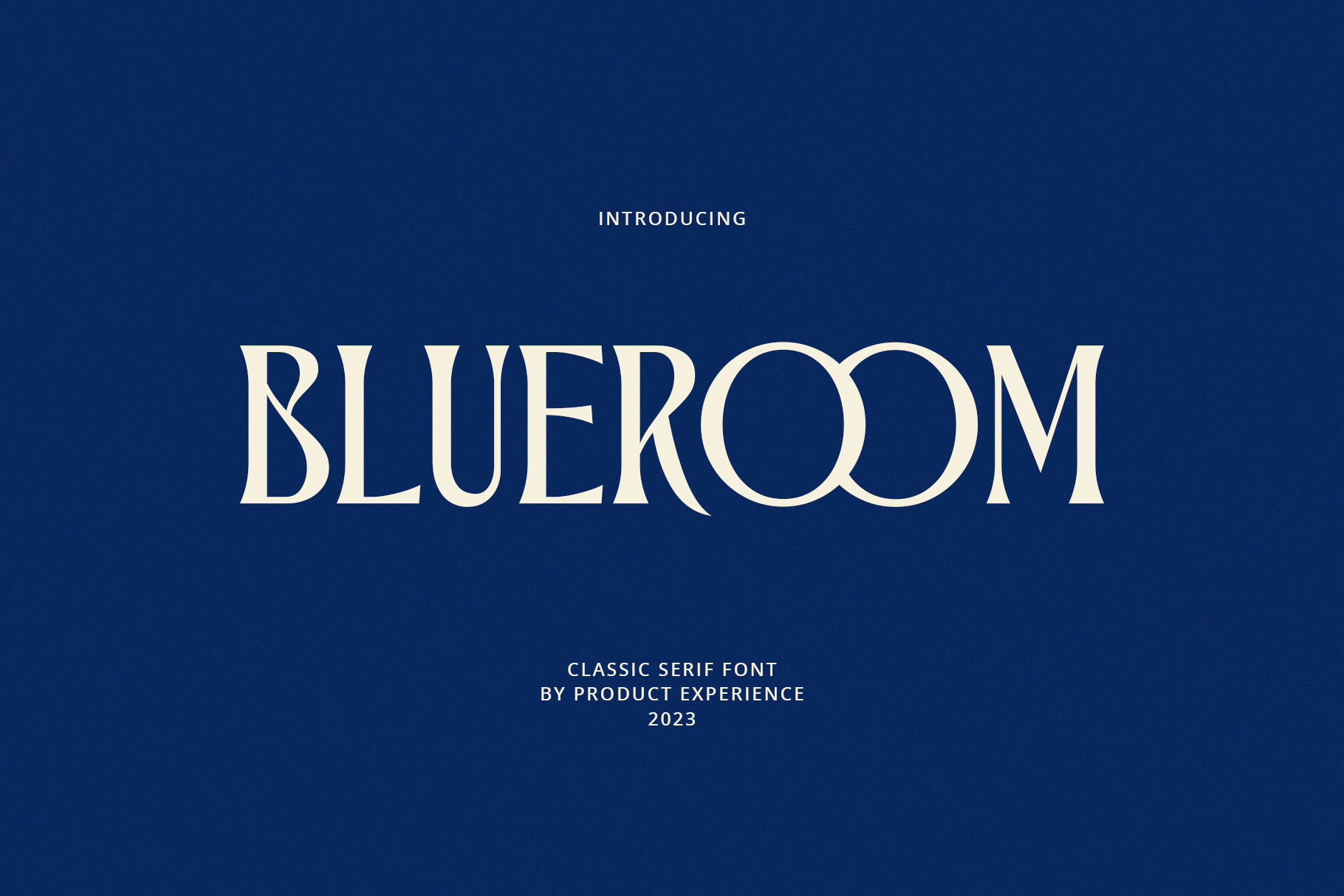
Blueroom Serif Font
Blueroom is a serif font with a classic style and a elegant look. This font also comes with ligatures, stylistic set and multi-language support.
This font is perfect for your design needs such as wedding invitation, logo design, branding, social media design, book, magazine, etc.